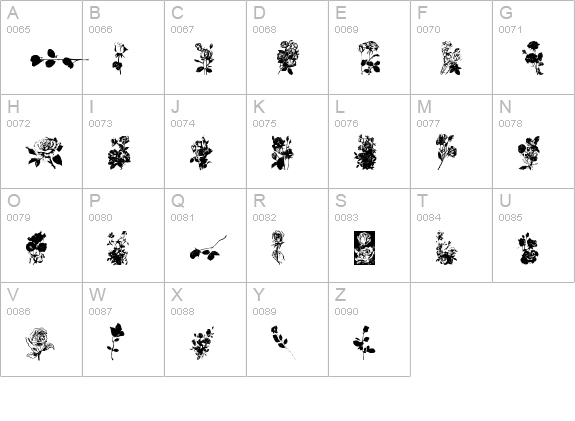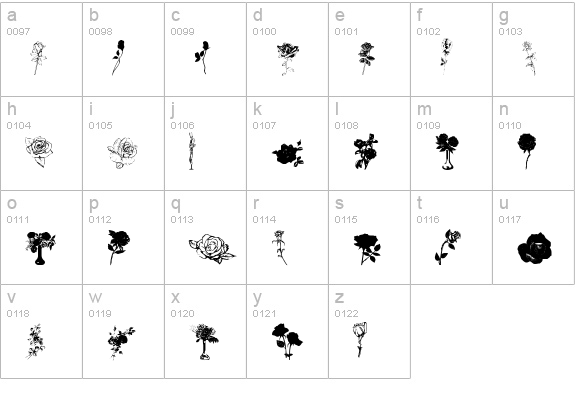
Buds and Blossoms font is a delightful and whimsical typeface that exudes charm and elegance. Its graceful curves and intricate floral details make it perfect for adding a touch of beauty to any design project. Whether you're creating wedding invitations, greeting cards, or branding materials, this font will surely captivate your audience with its unique style. The best part? Buds and Blossoms font is available for free download at FontsMarket.com. Yes, you read that right - you can easily access this gorgeous font without spending a dime. So why wait? Enhance your designs with the enchanting Buds and Blossoms font today and let your creativity bloom!